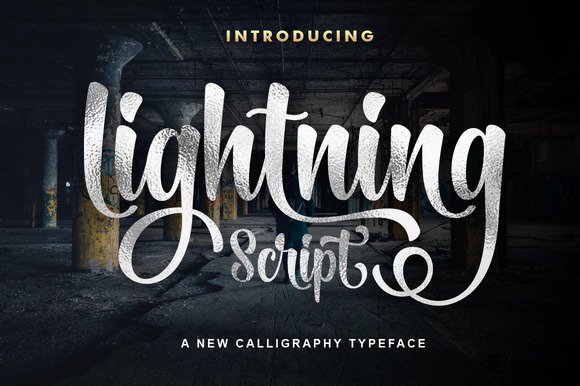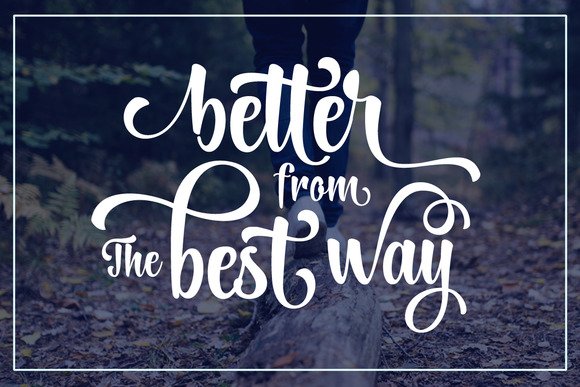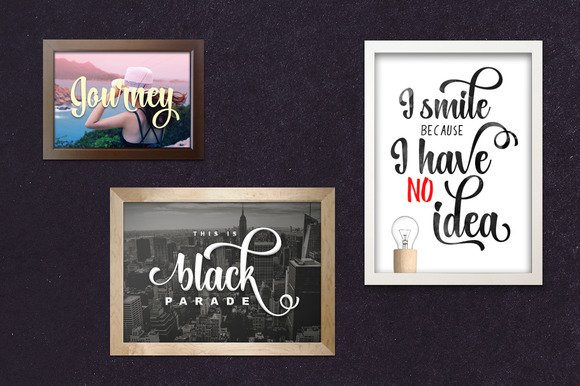
This beautiful calligraphy typeface, Lightning Script is FREE from Creative Fabrica! The versatile design is great for Cricut and Silhouette cutting projects. The style would suit everything from Christmas ornaments to wedding stationery, sarcastic quote designs or personalising a tumbler with a name.